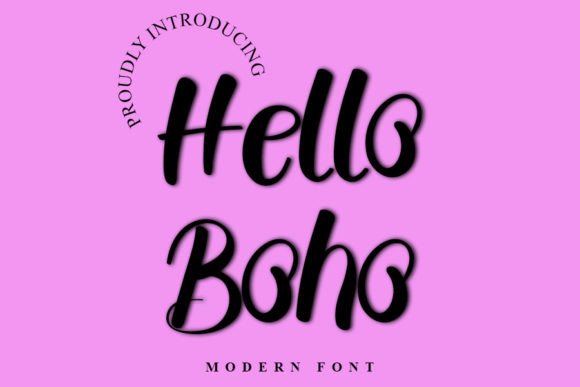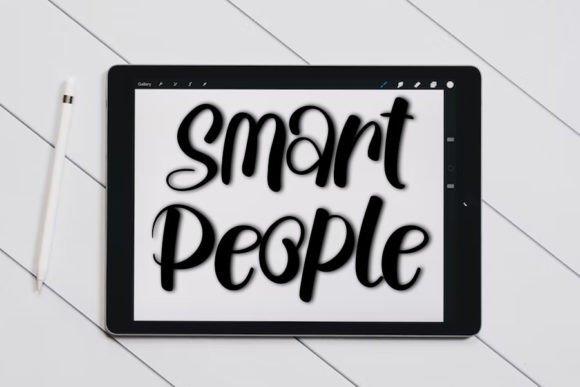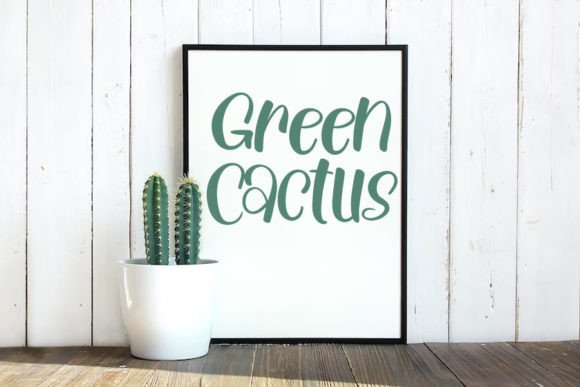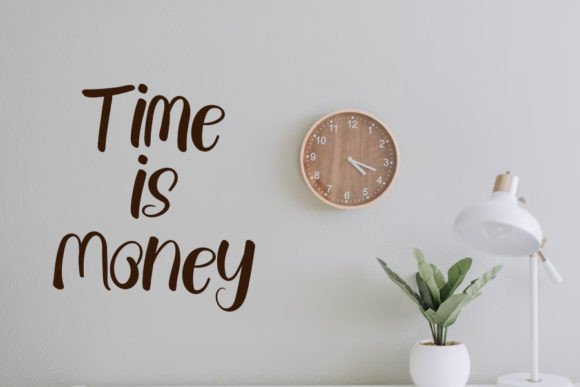
Hello Boho Font
About Hello Boho Font
Hello Boho font is a fresh and neat handwritten script designed to bring a charming and creative touch to your design projects. When you download Hello Boho font, you gain access to a stylish and versatile typeface that fits perfectly with modern, handcrafted aesthetics.
Why Download Hello Boho Font?
This font features clean lines and a balanced style, making it suitable for a wide range of creative ideas. Whether you are working on logos, invitations, greeting cards, or digital content, Hello Bohofont adds a personal and authentic feel. Download Hello Bohofont to enhance your designs with a warm and inviting handwritten look.
Ideal Uses for Hello Boho Font
Hello Bohofont shines in various applications, including:
• Craft projects that require a playful yet refined script
• Social media posts and branding that need a natural handwritten style
• Wedding invitations, greeting cards, and event signage with a personal flair
• Packaging design and logos where authenticity matters
By downloading Hello Bohofont, you ensure your projects carry a fresh and appealing handwritten style.
In summary, Hello Bohofont is a fresh and neat handwritten script that will uplift your creative ideas. Download Hello Bohofont now and give your designs a stylish handwritten charm.